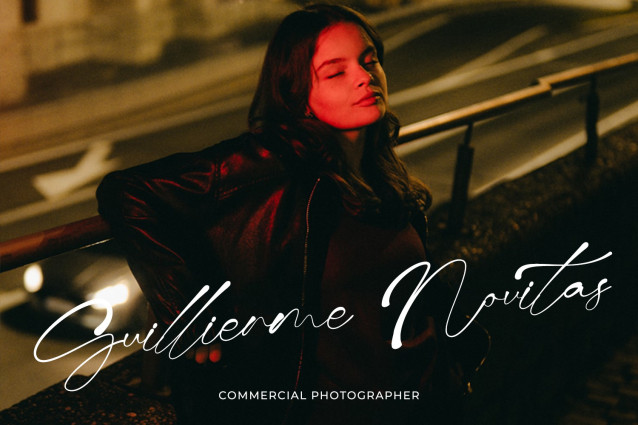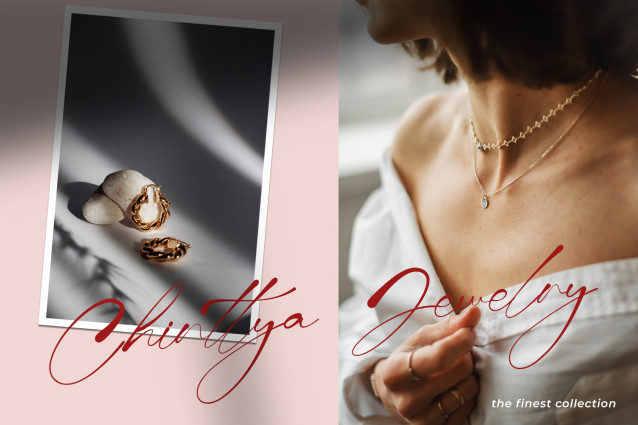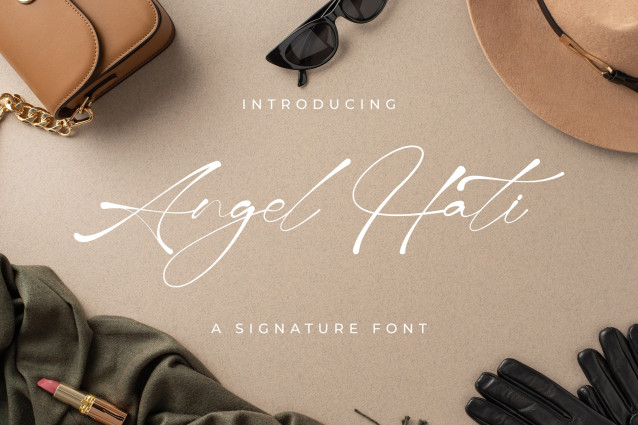
Angel Hati Font
Angel Hati Font is a refined and elegant signature font that exudes sophistication and personal charm. With its smooth, flowing strokes and natural handwriting aesthetics, this typeface is perfect for branding, wedding invitations, luxury packaging, and high-end editorial designs. Its delicate letterforms create a graceful and timeless appeal, ensuring a professional yet artistic touch to any project. Angel Hati also includes ligatures and multilingual support, making it versatile for global use. Elevate your typography with the graceful beauty of AngelHati.